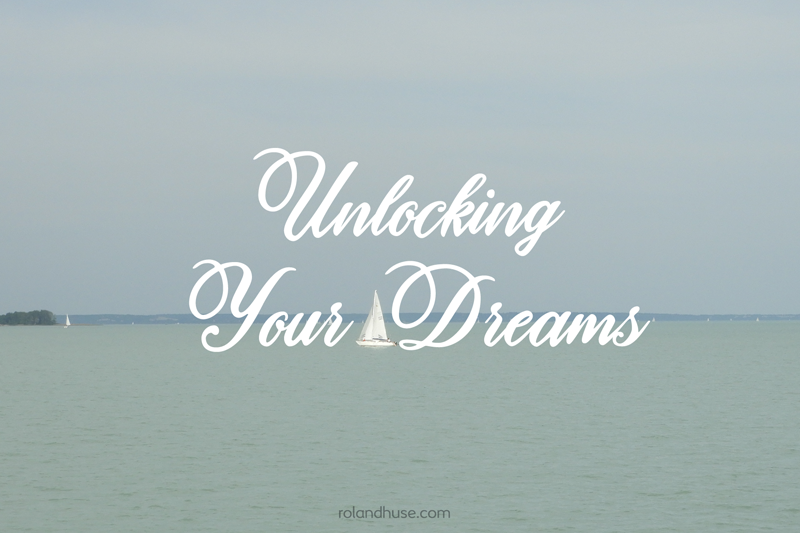
�Unlocking Your Dreams� is a hand drawn Calligraphy experimental font. This is a demo version for commercial use and full character set please write me at contact@rolandhuse.com http://rolandhuse.com @rolandhusedesign Follow me on Instagram workingwithglyphs.com subsribe to my Glyphs course |